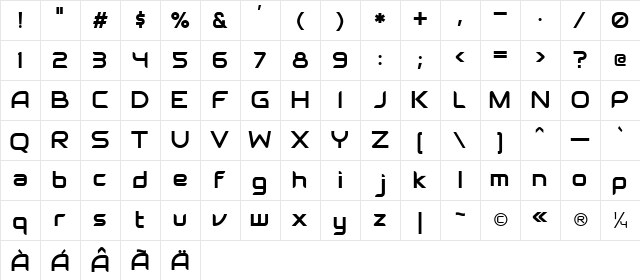
deadman Regular
| Foundry | scott minnis |
| Designer | scott minnis |
Design Context for deadman Typeface
deadman offers clean, dependable letterforms without strong stylistic allegiance, making it a practical choice for designers who need flexibility.